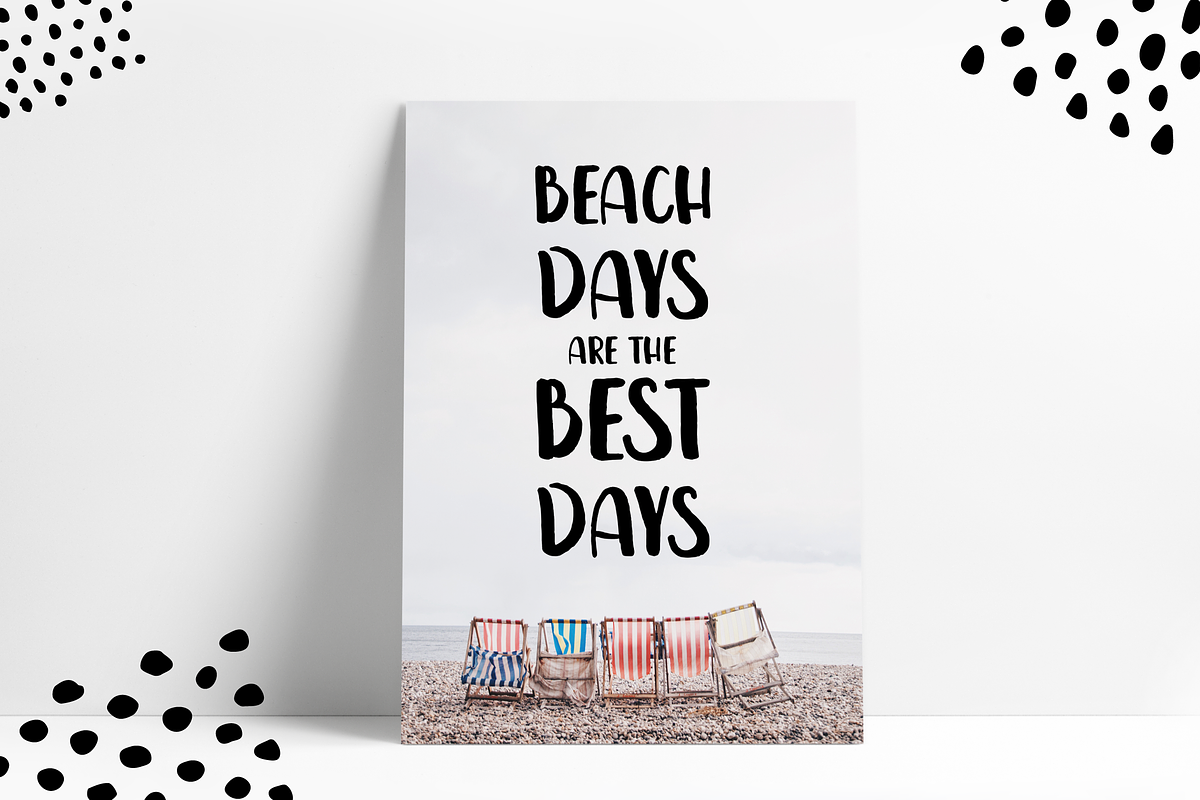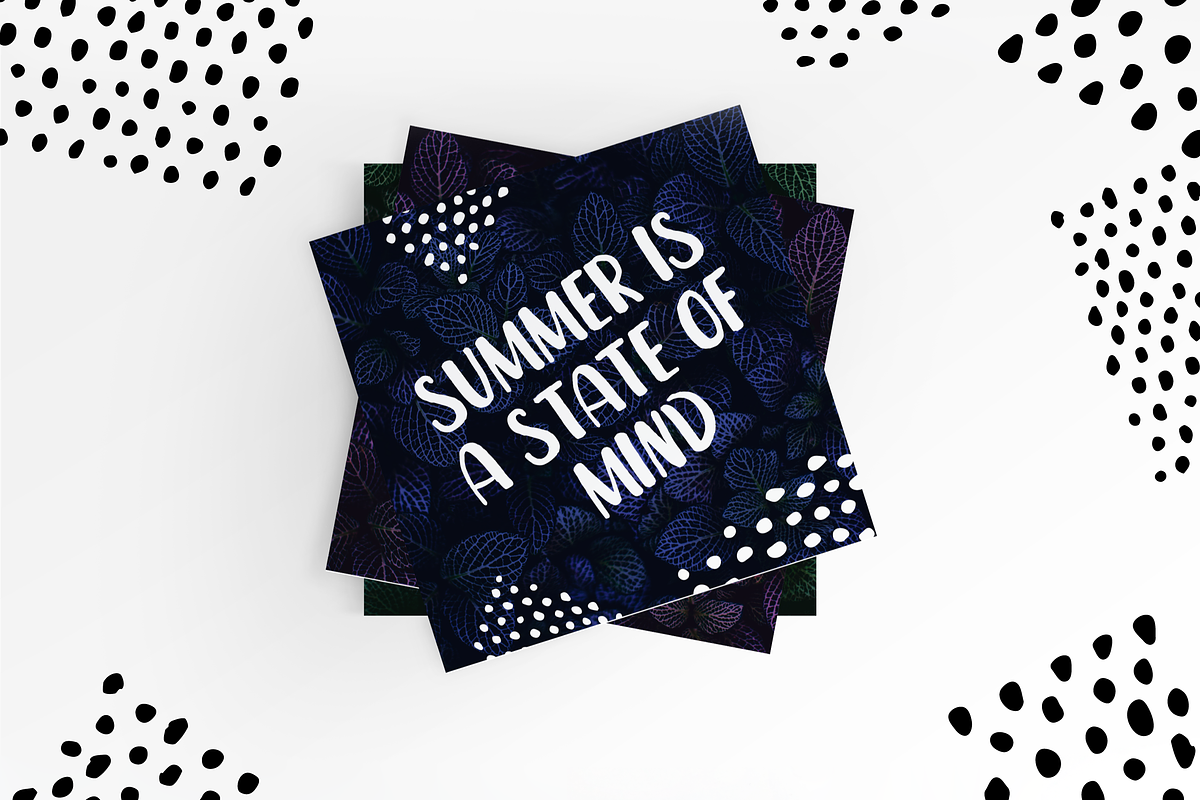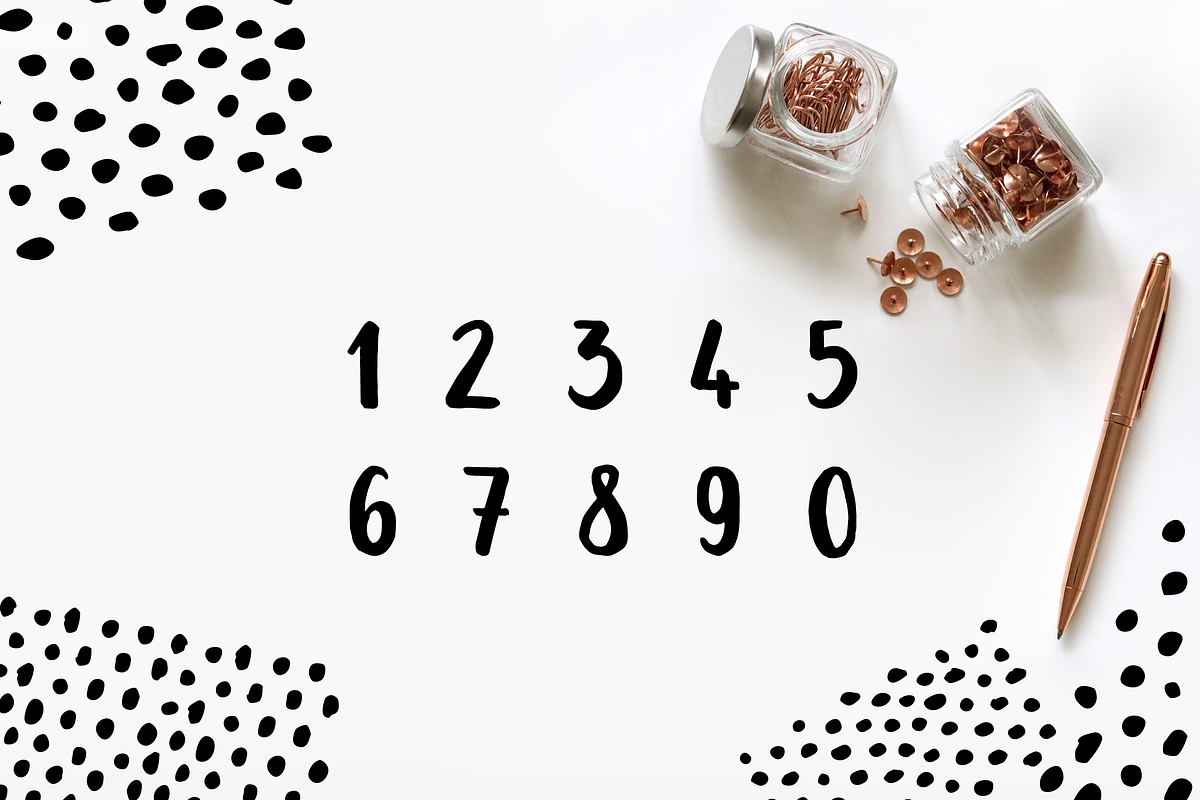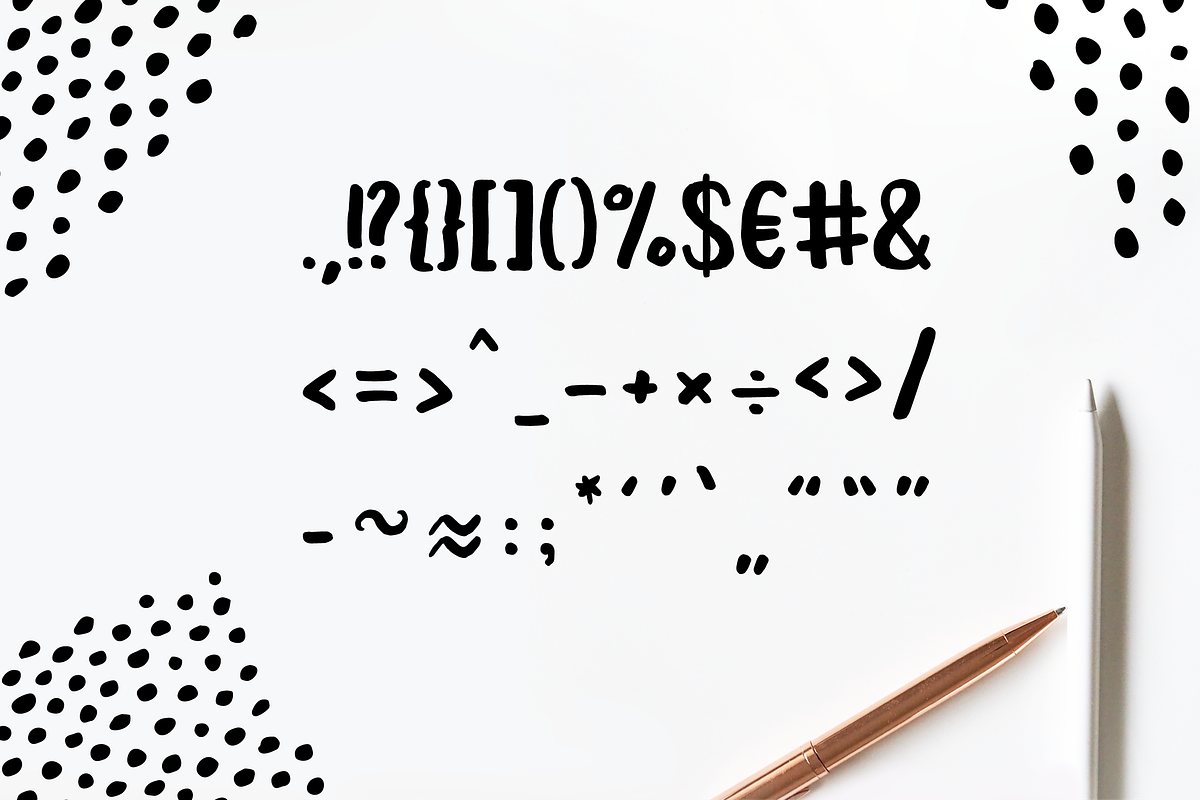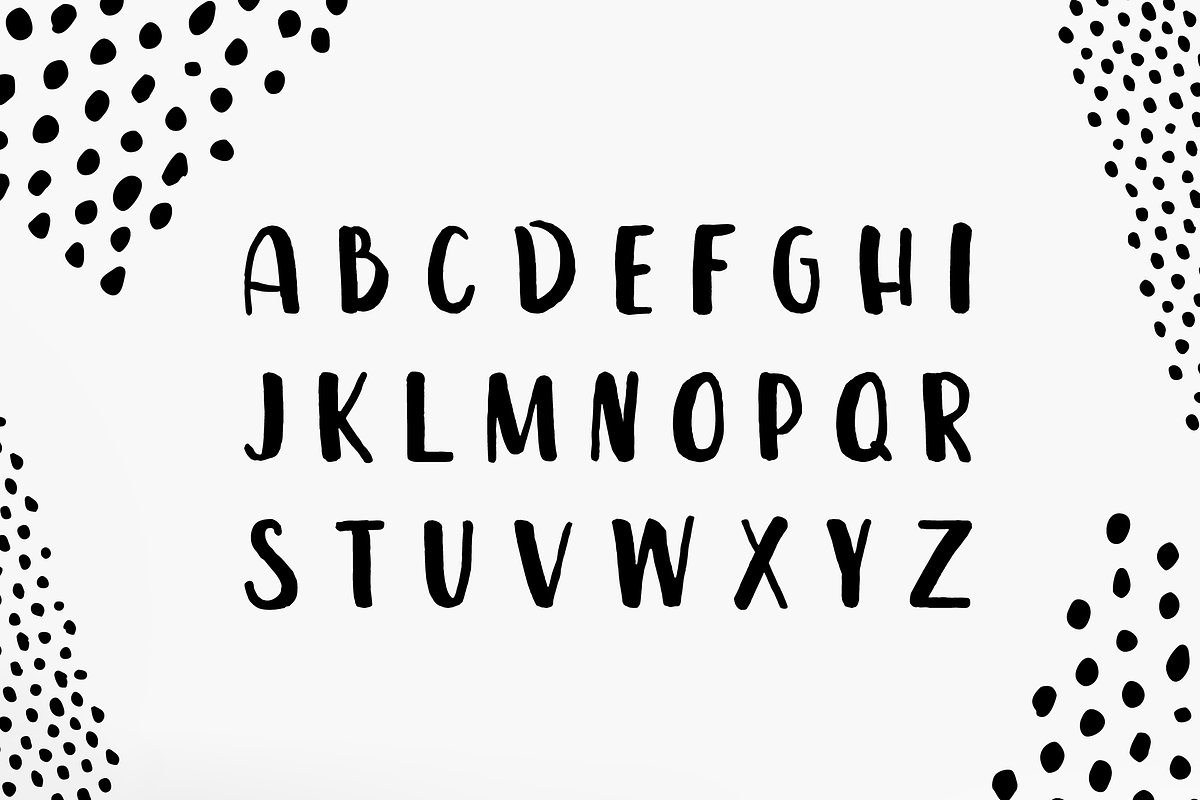
Leira Hand Drawn Brush Font
Leira Hand Drawn Font is a hand drawn brush uppercase font. This font has handwritten feel so it will give your designs personal touch. Bold characters will stand out and be easy to read. It's great for creating identities, logos, posters, cards and packaging design.
- Uppercase letters, numbers, symbols included.
- Leira Hand Drawn Font is a hand drawn brush uppercase font.
- Bold characters will stand out and be easy to read.
- Uppercase letters, numbers, symbols included.